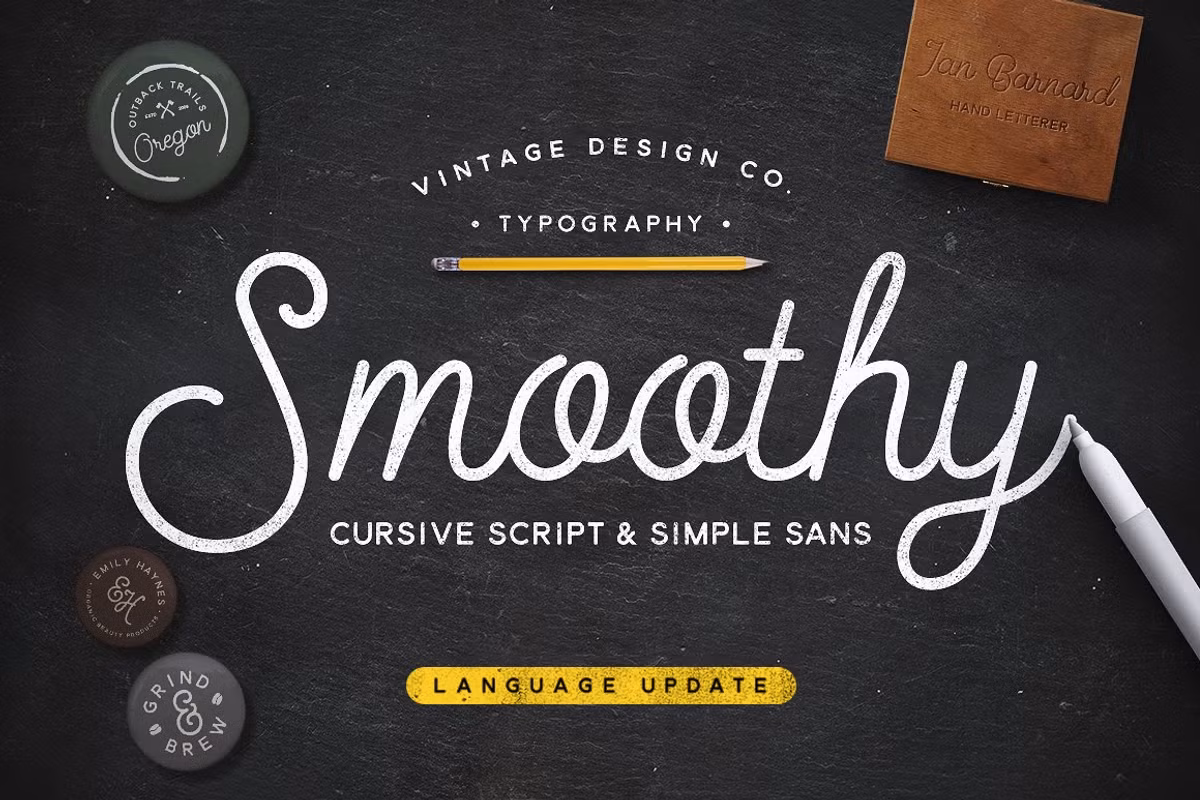
Please note that you must purchase this font duo for commercial use. You can download Smoothy – Cursive Script & Sans Font for free, strictly for personal testing purposes only. Smoothy is a versatile font duo that combines a stylish cursive script font with a clean and modern sans-serif font. Smoothy Font Duo Free Download is perfect for a wide range of creative projects, including branding, logos, invitations, social media posts, and more.
The cursive script font adds elegance and a personal touch, while the sans font provides a clean and professional look. Together, they create a dynamic and balanced typographic combination. The duo includes uppercase and lowercase letters, numerals, punctuation, and multilingual support, offering flexibility for a variety of design applications.
Whether you're designing a modern brand, creating custom invitations, or working on stylish marketing materials, Smoothy brings both elegance and clarity to your typography.